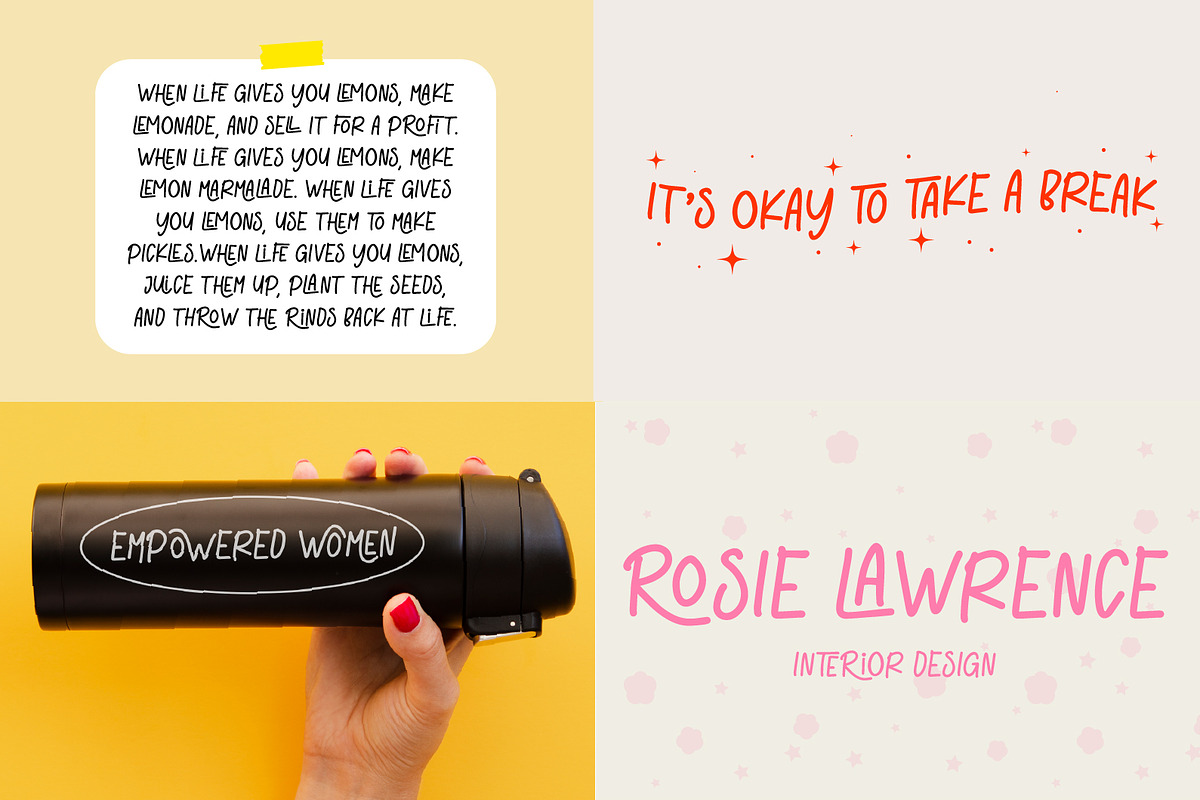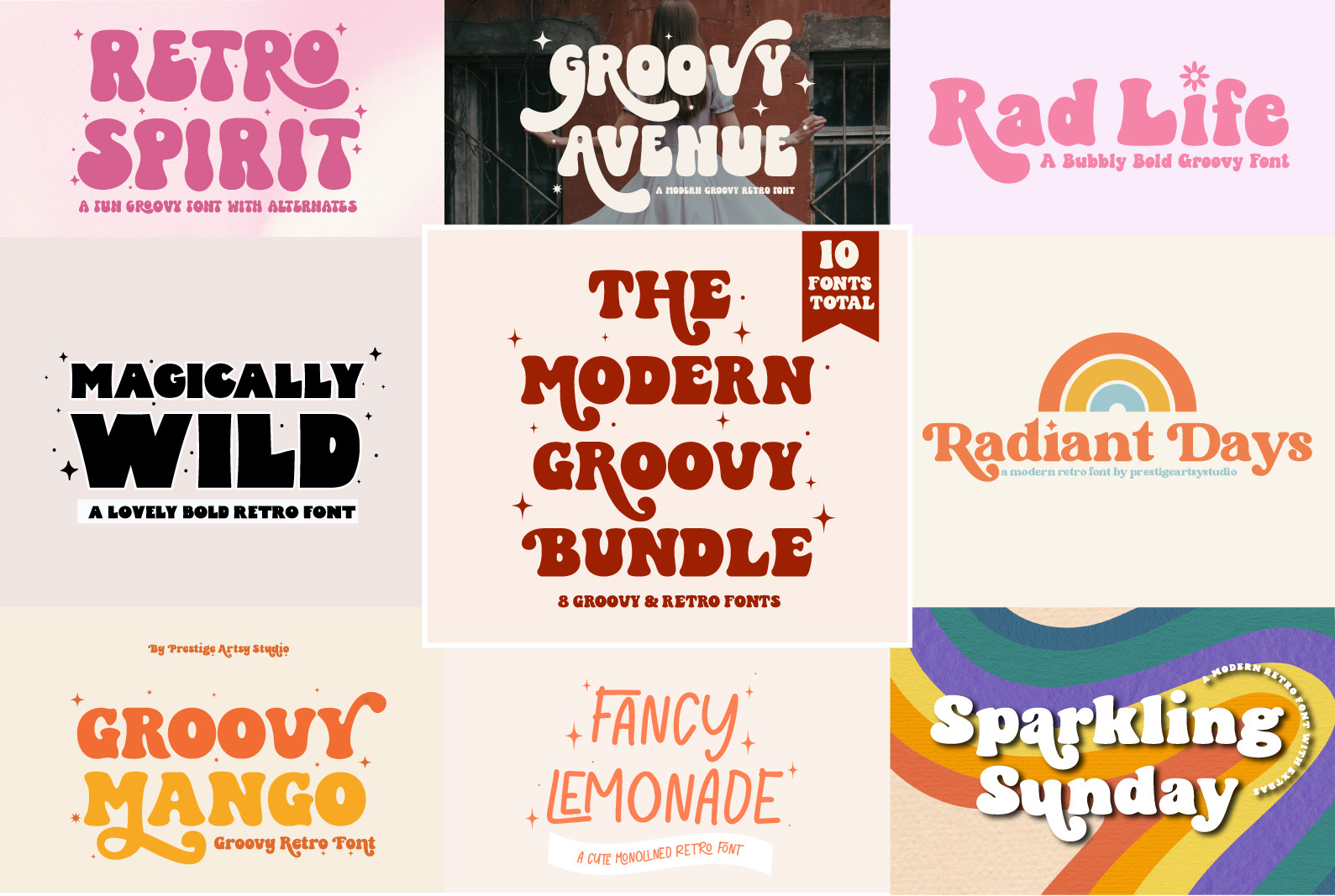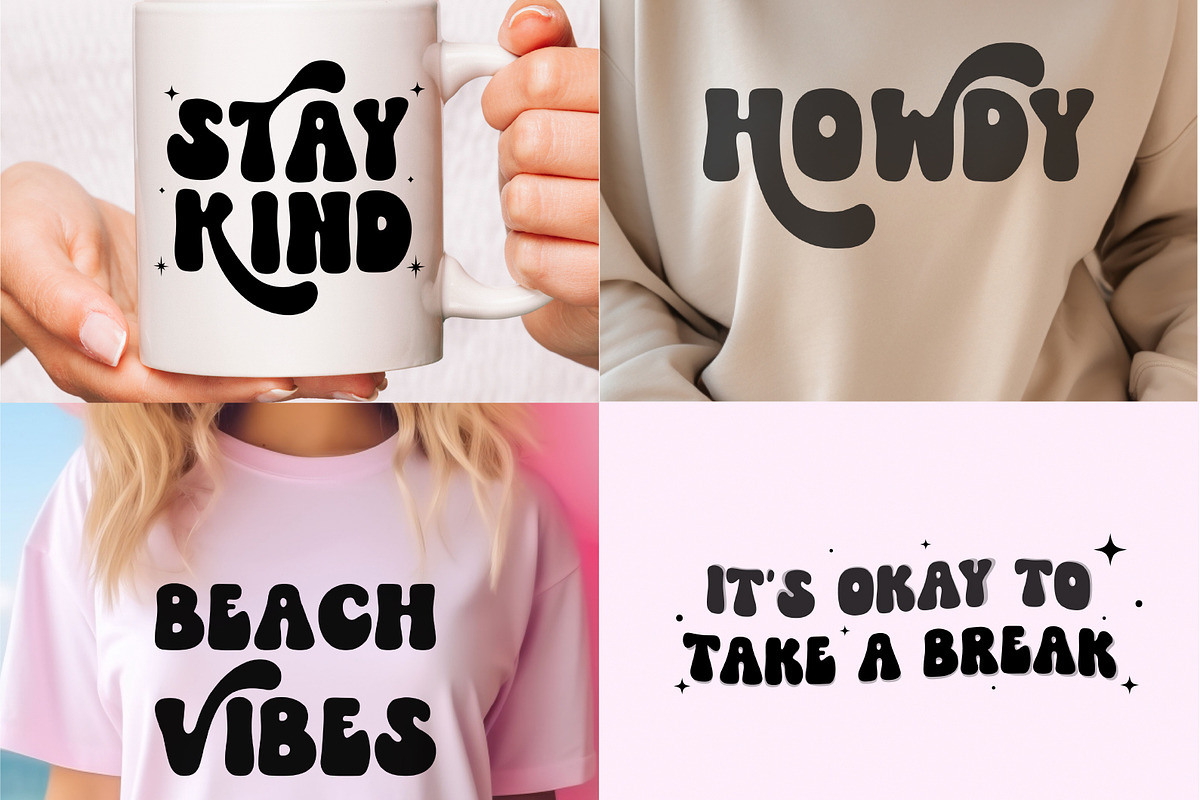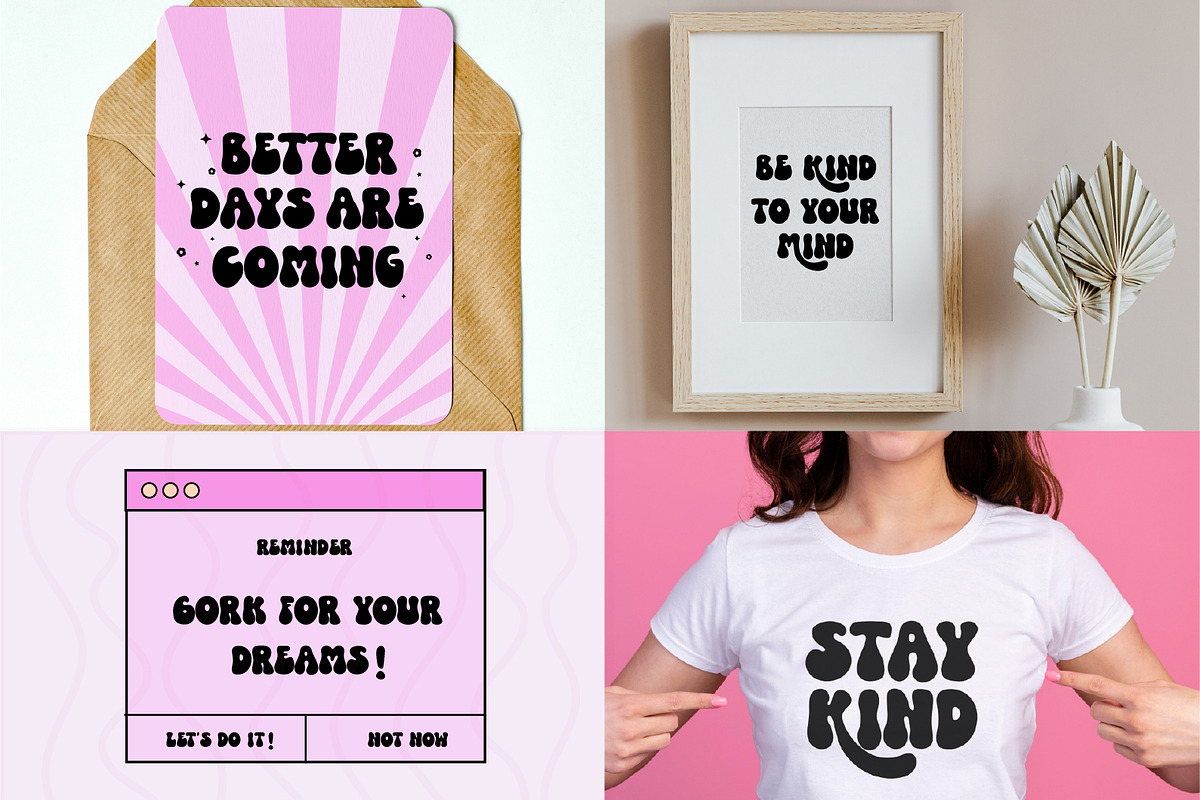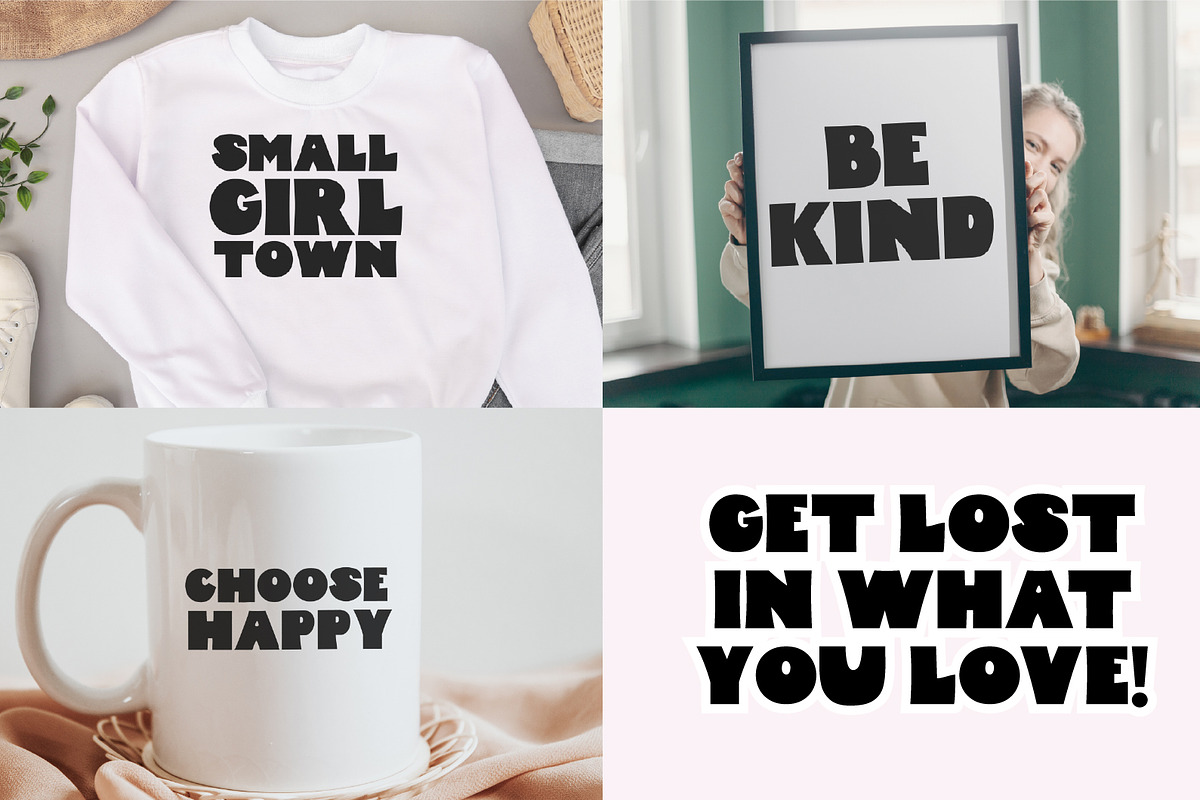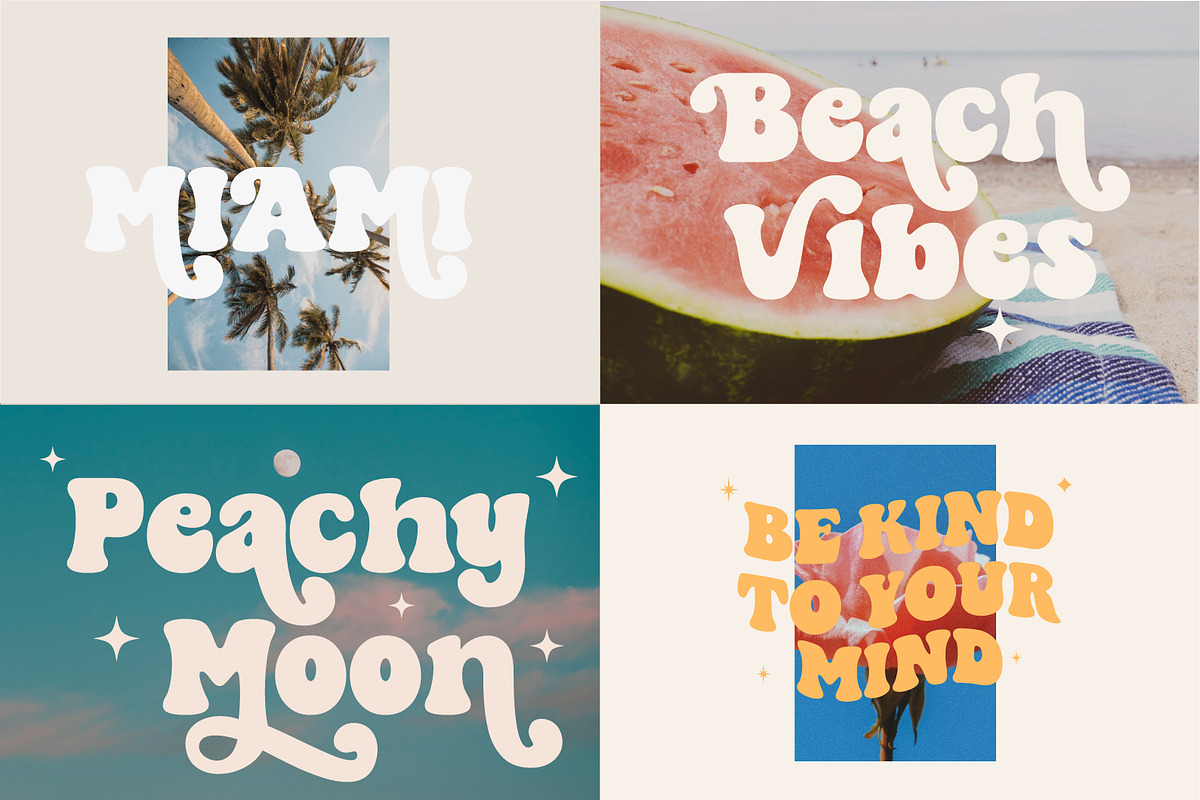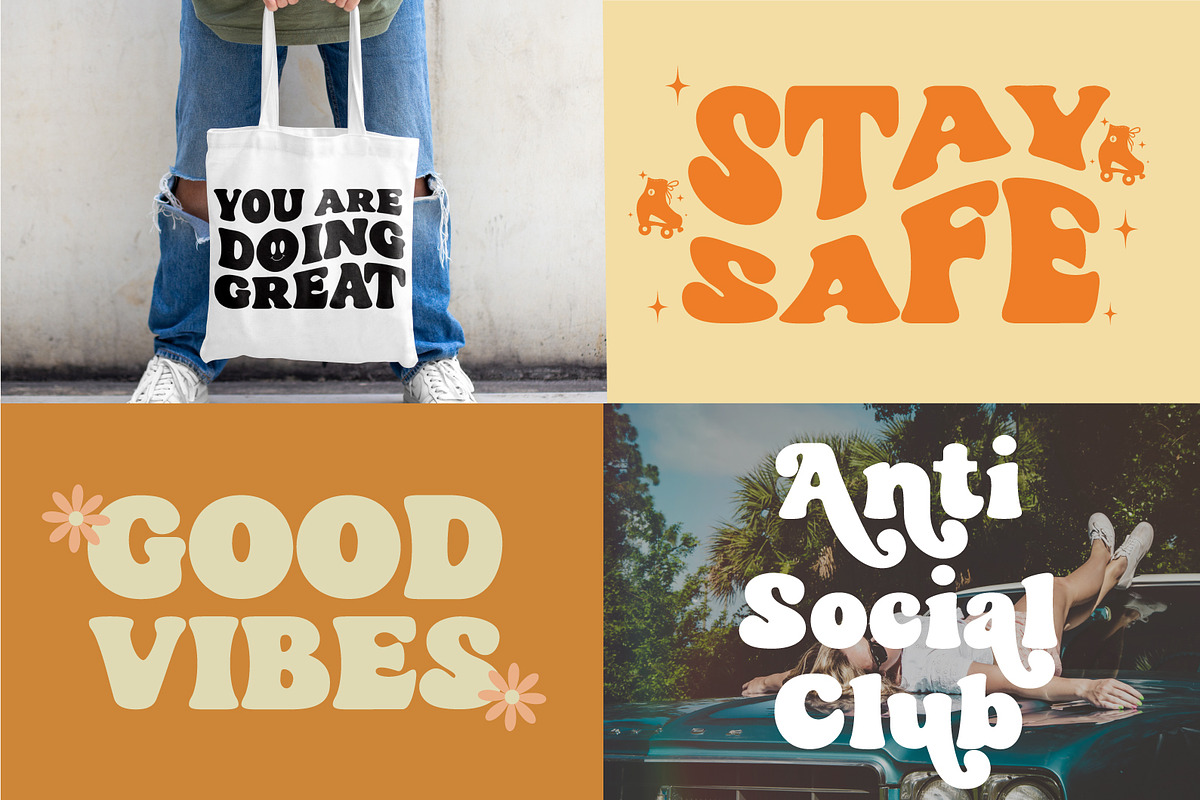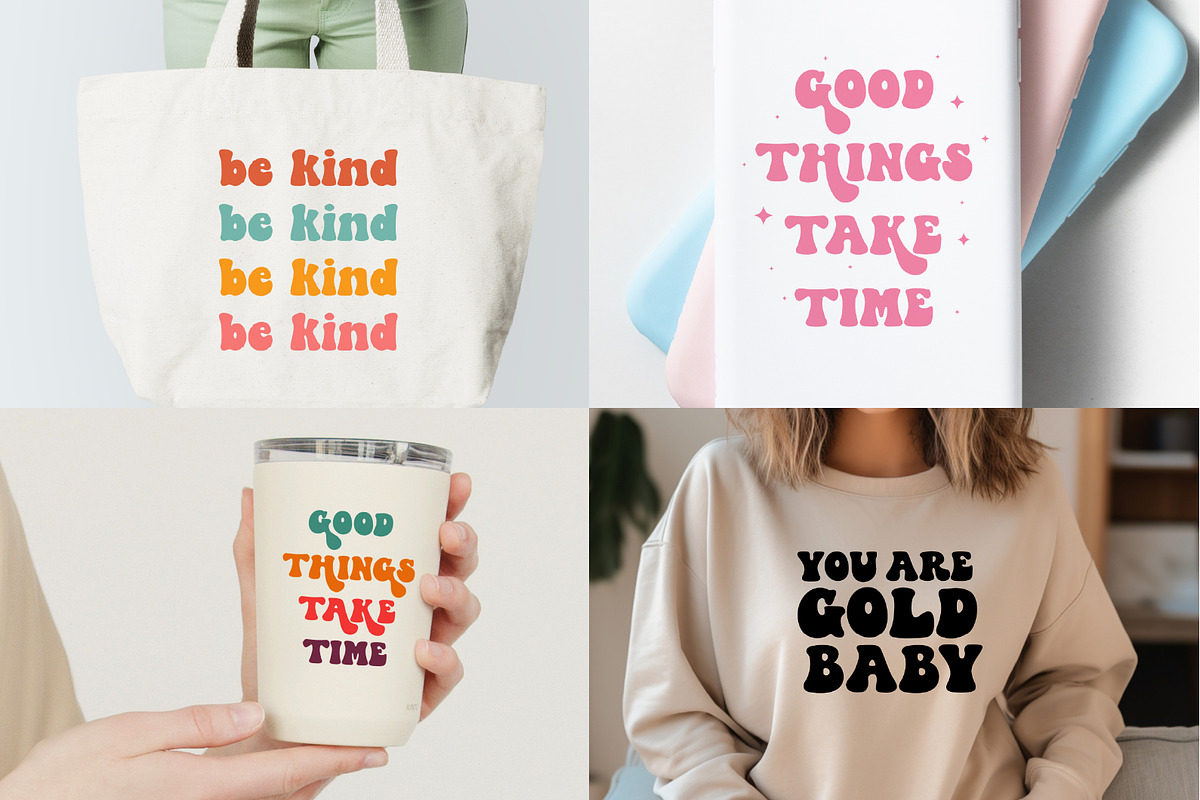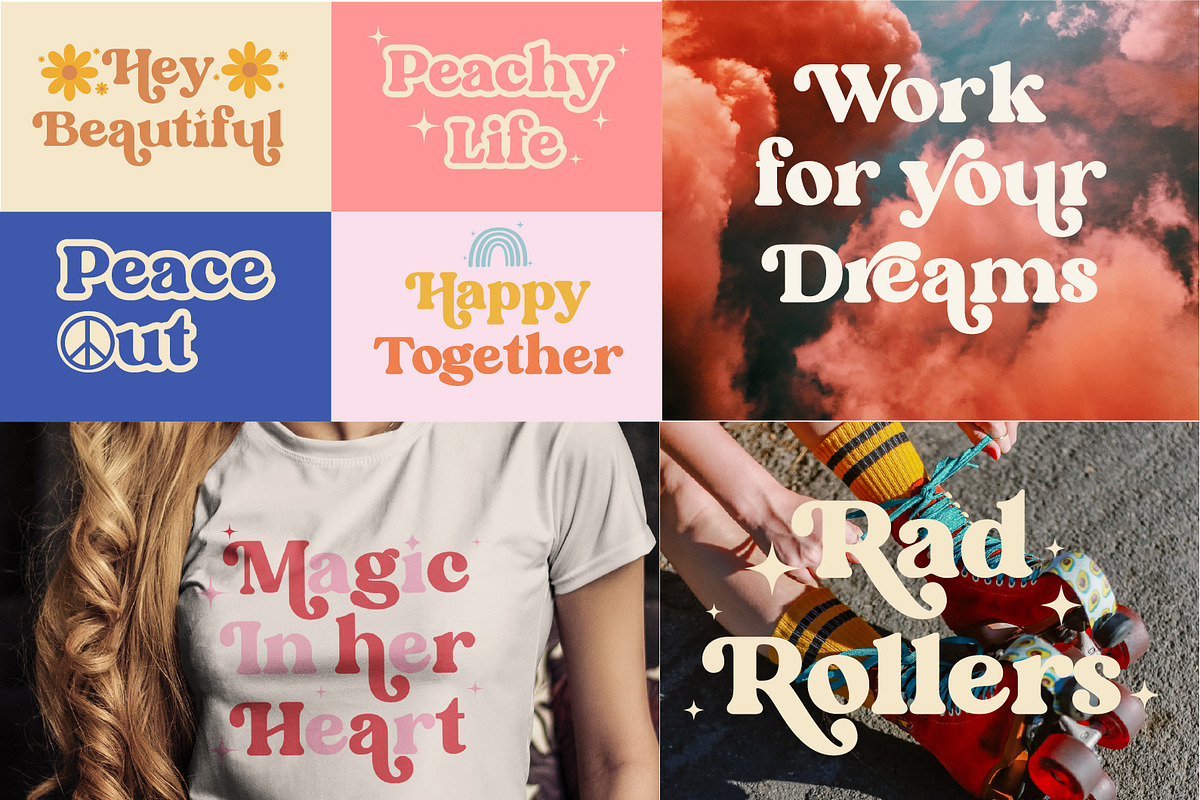
The Modern Groovy Retro Font Bundle
Introducing the groovy and retro font collection that takes you back to the vibrant and exciting era of the 60s and 70s. This carefully curated bundle celebrates the fun, funky, and nostalgic styles of the past, giving your designs a bold and groovy twist.